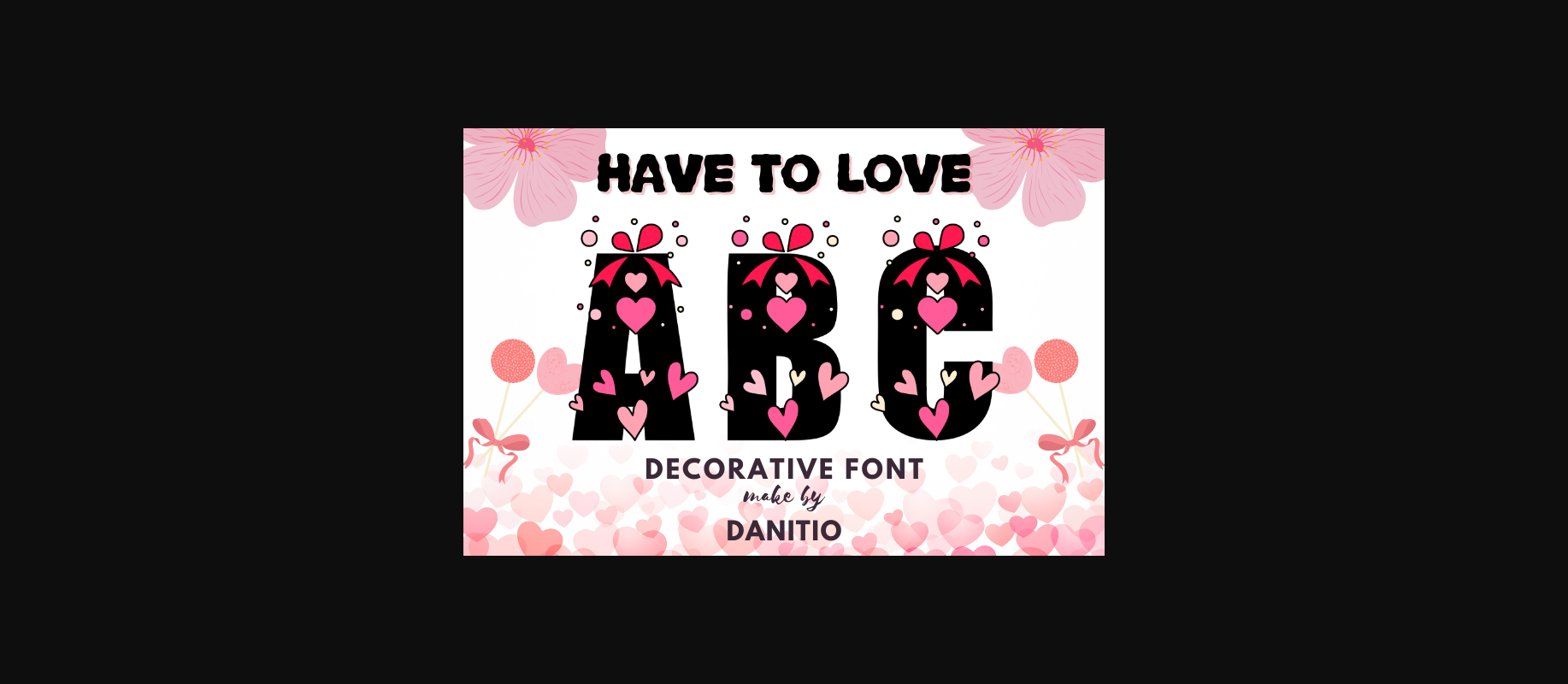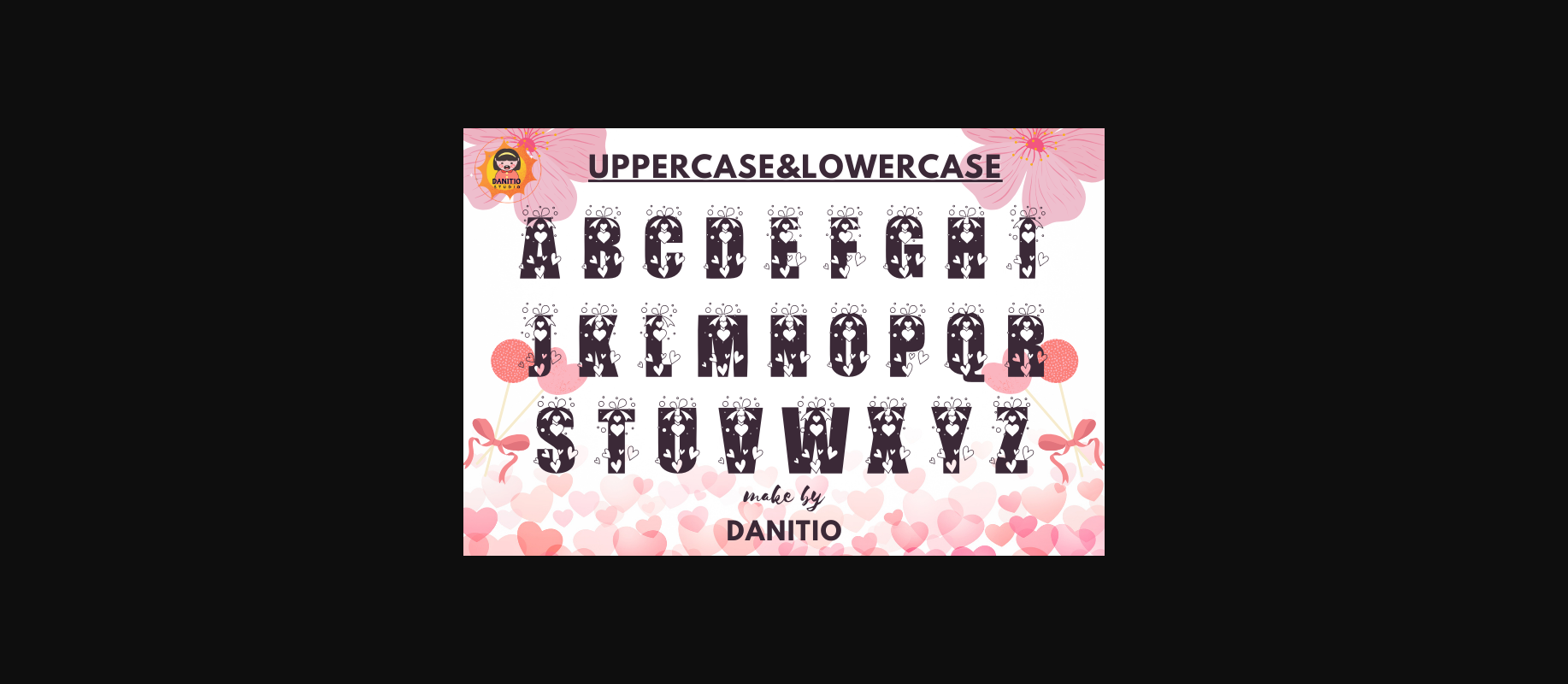
About Have to Love Font
Have to Love is a unique and cute Valentine’s Day font. This decorative font will go beautifully with your couple’s Valentine’s cards, t-shirts, invitations, book covers, posters, etc. or other products that you think are suitable Hope you have fun using my fonts.